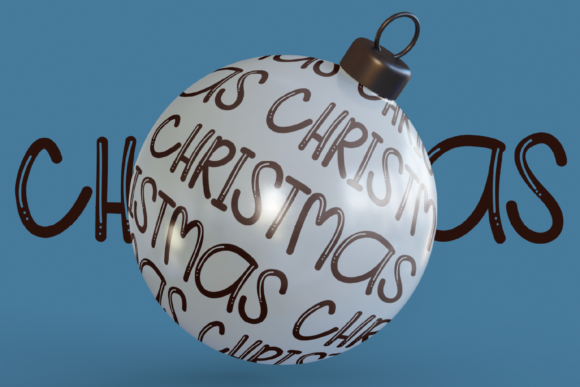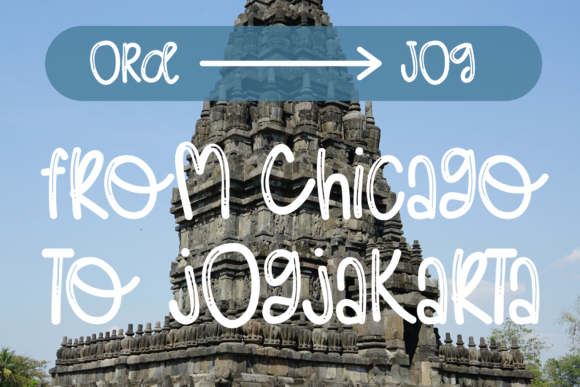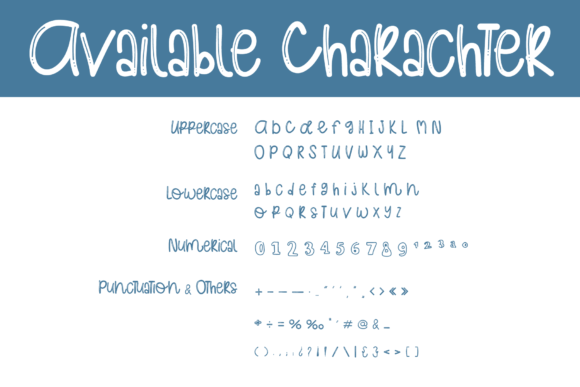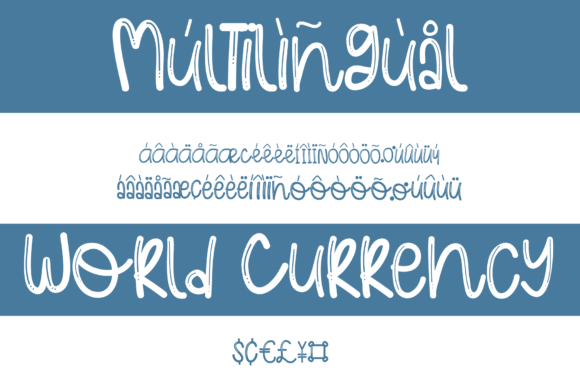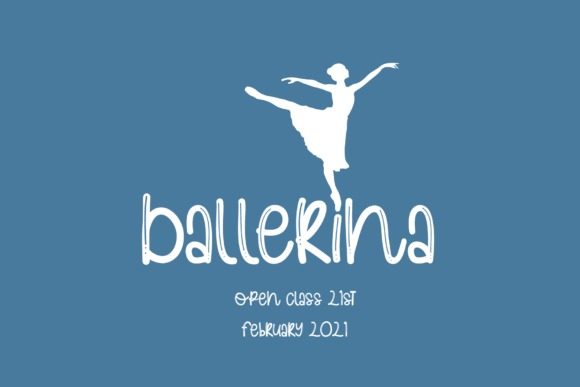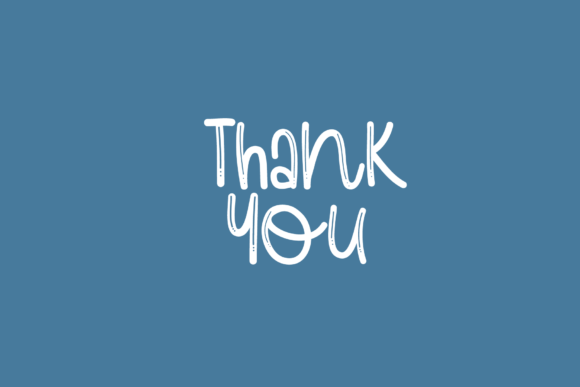
Introduction to Masterina Font
Have you ever stared at a blank canvas, waiting for inspiration to strike? That’s where the magic happens – in the creative process. For designers, finding the right font can be the game-changer that brings an idea to life. And that’s exactly what Masterina Font is designed to do – turn any creative idea into a standout!
As a design resource, Masterina Font is a breath of fresh air. Its unique and quirky personality makes it perfect for adding a touch of whimsy to your next project. With a transparent background and high-quality design, this font is sure to elevate your creative project to new heights. And the best part? It’s available for a free download, making it accessible to designers of all levels.
Whether you’re working on a logo, a social media campaign, or a marketing brochure, Masterina Font is the perfect addition to your design toolkit. Its authenticity and fun-loving vibe make it a valuable asset for any designer looking to add a little extra flair to their work.
Key Features of Masterina Font
- High-quality design resource ideal for creative projects with a transparent background, allowing for seamless integration with various design elements.
- Masterina Font is designed to be highly legible, with clear and crisp typography that’s perfect for body text, headings, and titles in creative projects.
- Its unique characteristics, including a modern and elegant design, make it an excellent choice for designers looking to add a touch of sophistication to their work.
Honest Review: Masterina Font
I recently had the chance to work with the Masterina Font for a creative project and I must say, it’s a great design resource. The font is free to download, which is always a bonus for designers working on a tight budget.
Here are some things that work well: ✨ The font is highly legible and suitable for both body and heading text. The transparent background feature is also a great addition, making it easy to integrate with various design elements. Additionally, the font’s high quality ensures that it looks crisp and clear even at larger font sizes.
However, there are some limitations to consider: ⚠️ The font library is quite limited, which might not be ideal for designers working on projects that require a wide range of font styles. Additionally, the font’s versatility is somewhat limited, making it less suitable for projects that require a lot of creative freedom.
Overall, the Masterina Font is a solid choice for designers working on smaller projects or those who need a reliable, high-quality font for their design work. While it may not be the best fit for more complex or creative projects, it’s definitely worth considering as a design resource.
- Highly legible and suitable for both body and heading text
- High quality
Masterina Font
The Masterina Font is a high-quality design resource perfect for creative projects that require a unique touch. With its transparent background and versatile style, it’s ideal for designers and artists looking to add a personal touch to their work.
For more advanced design projects, use Masterina Font in Adobe Photoshop or Illustrator. The font’s high quality and versatility make it an excellent choice for creating complex designs.
For the most out of Masterina Font, experiment with different font sizes, colors, and combinations. Use the transparent background feature to create unique and eye-catching designs.
Masterina Font is perfect for: